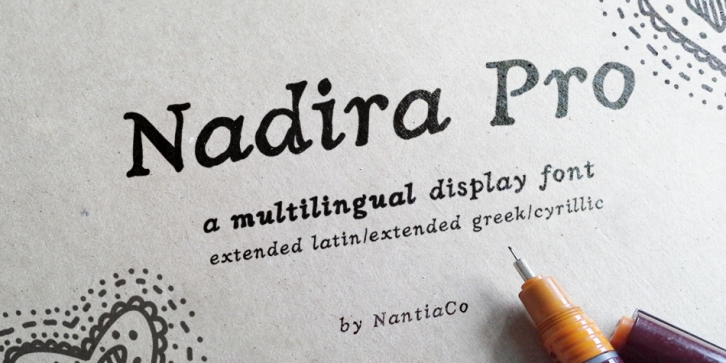
Nadira Pro is a hand drawn font family. This typeface has two styles  and was published by Konstantina Louka.
Nadira Pro Font is a multilingual display serif font.
I wanted to make a nice Greek hand-drawn serif font, that looks formal enough on wedding invitations, but not too sketchy. I wanted to create a display font that has a great variety of applications.
The font is handcrafted but still, is maintaining it’s legibility and balance so it can be used on small paragraphs too.
Nadira Pro Font is a hand-drawn, decorative, serif font with 882 glyphs in 2 weights with extended Latin, extended Greek (polytonic greek), Cyrillic characters, punctuation marks, diacritics and numbers.